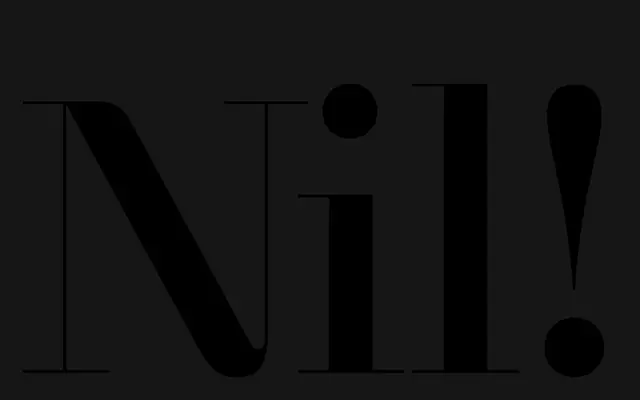
Agatha
Newglyph · Ian Party · 2003
A Didot-rooted serif by Ian Party, developed over two decades from a 19th-century typeface discovered in a Lausanne bookshop, now released as a 180-style variable family.
Ian Party first encountered the source typeface in 2003, inside a copy of La Comédie du jour sous la République Athénienne illustrated by Caran D'Ache. The design evolved through several iterations for editorial clients before culminating in a 2023 variable release spanning three axes: weight, width and contrast. Its romantic character shows in the curved serifs, the floral g, and the sinuous strokes of the A, V and W, situating it between high Didot formalism and early art nouveau.
Agatha draws explicitly from 19th-century Didot and neoclassical traditions, with high contrast between thick and thin strokes and a romantic, art nouveau character typical of Didone serifs.